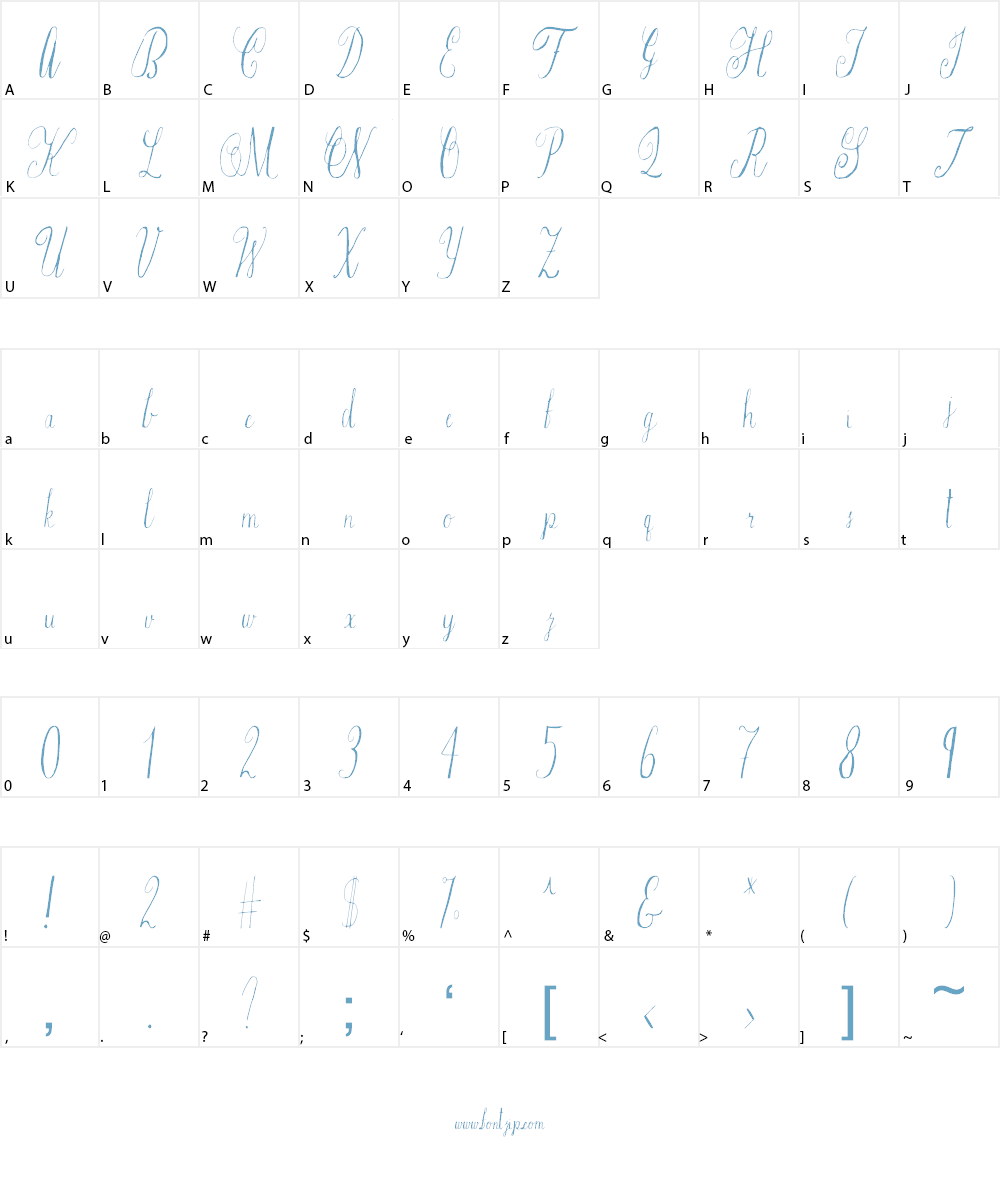
Thanks for checking out Shimla La Script! A fabulously fun yet elegant script font with tons of energy, allowing you to create beautiful hand-made typography in an instant.